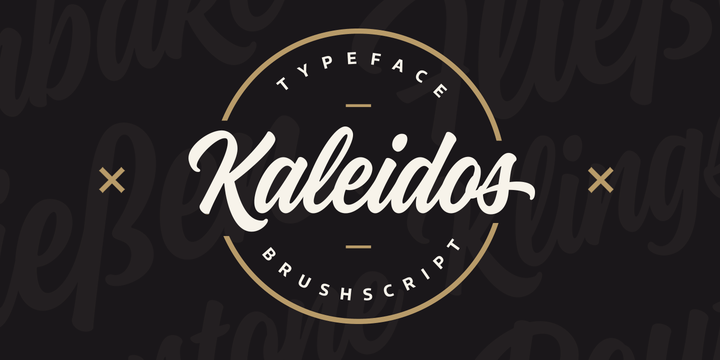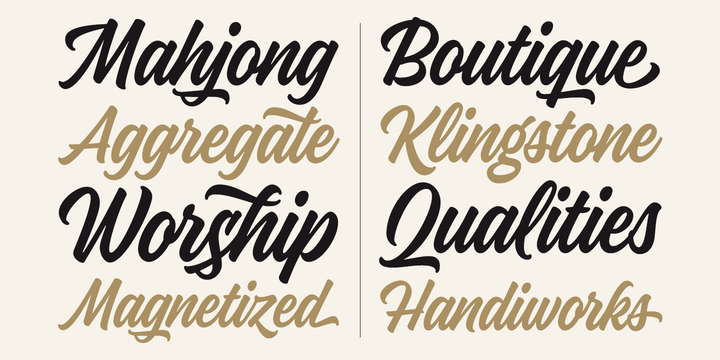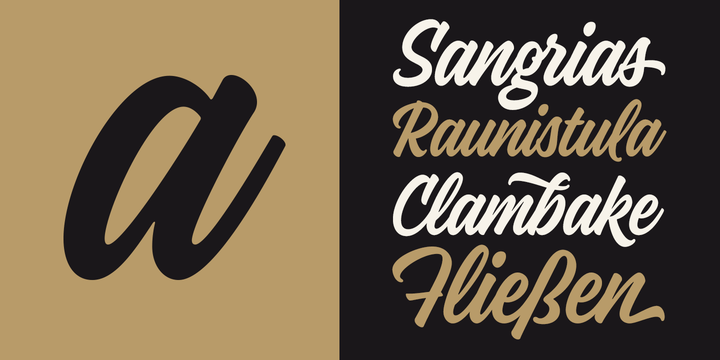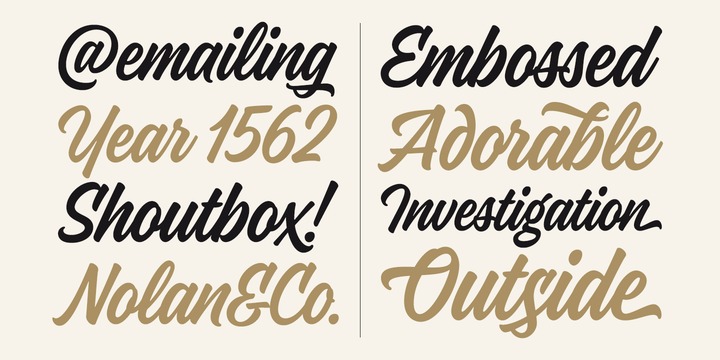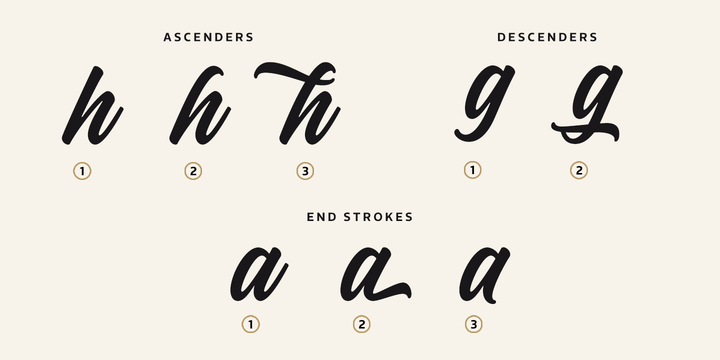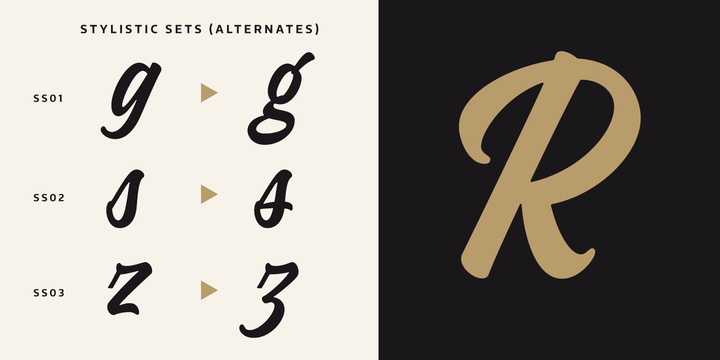
Kaleidos
Font Family by Mika Melvas
Kaleidos is a lining and clean brush script with soft and round letterforms. It is sketched and drawn with a pointed brush pen. Kaleidos has plenty of alternates, ligatures and swashes so you can build interesting-looking words and headlines. Although Kaleidos is condensed and quite tightly spaced it is clear and legible